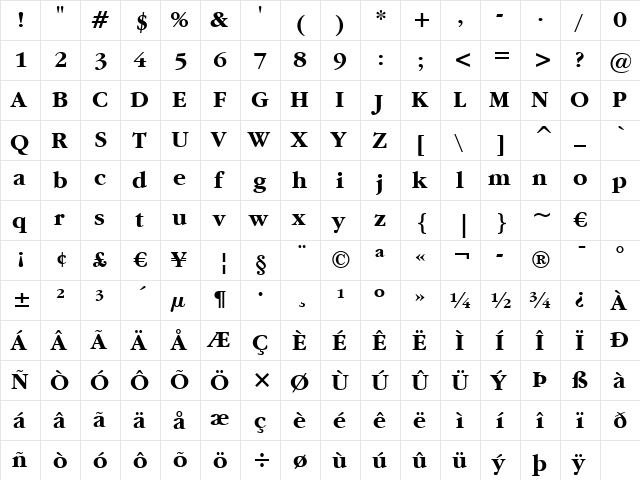
font256 Bold
Design Context for font256 Typeface
font256 is a composed and adaptable typeface that performs quietly and consistently across a wide range of design contexts. The heavy weight commands attention and anchors typographic hierarchies.